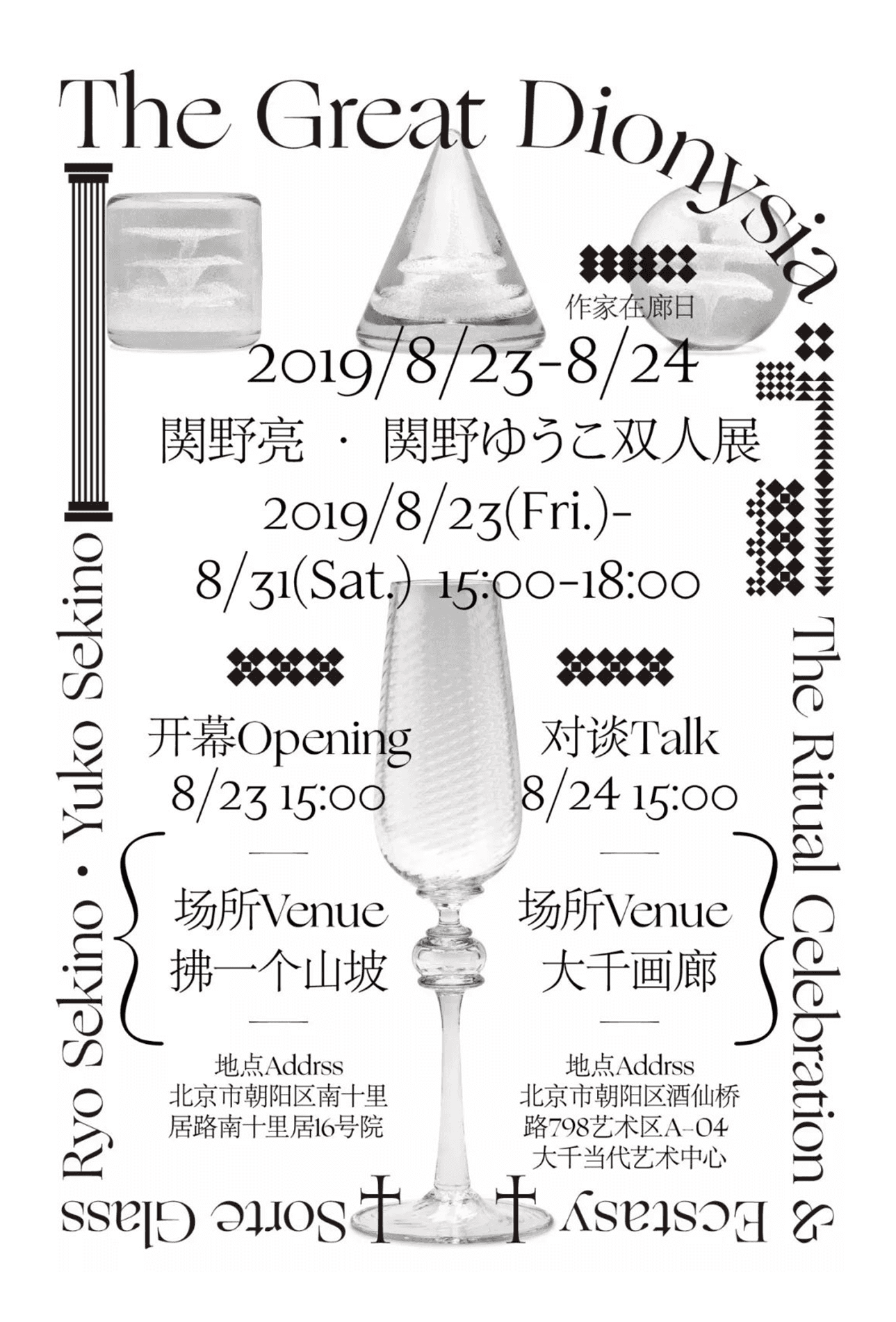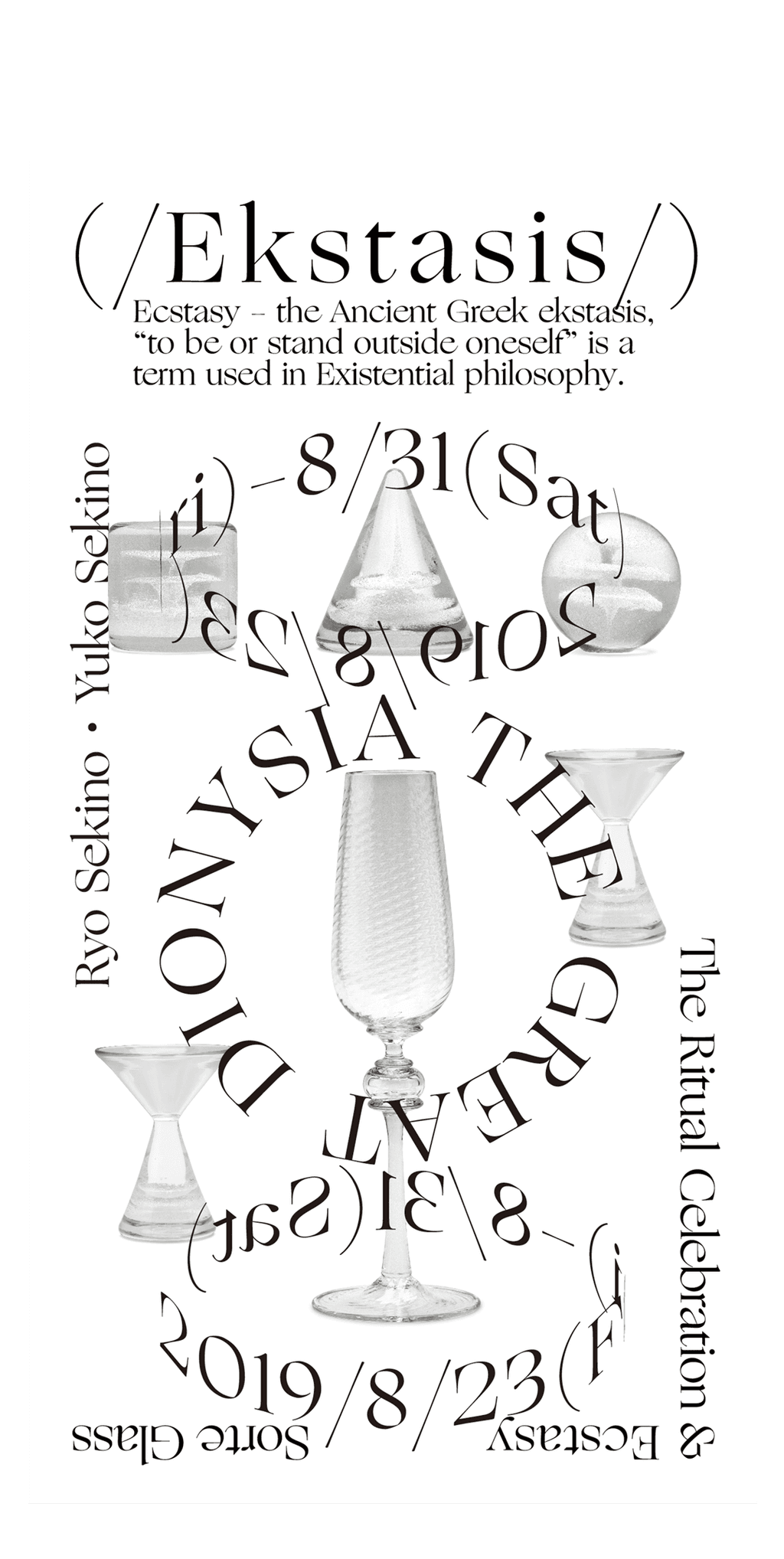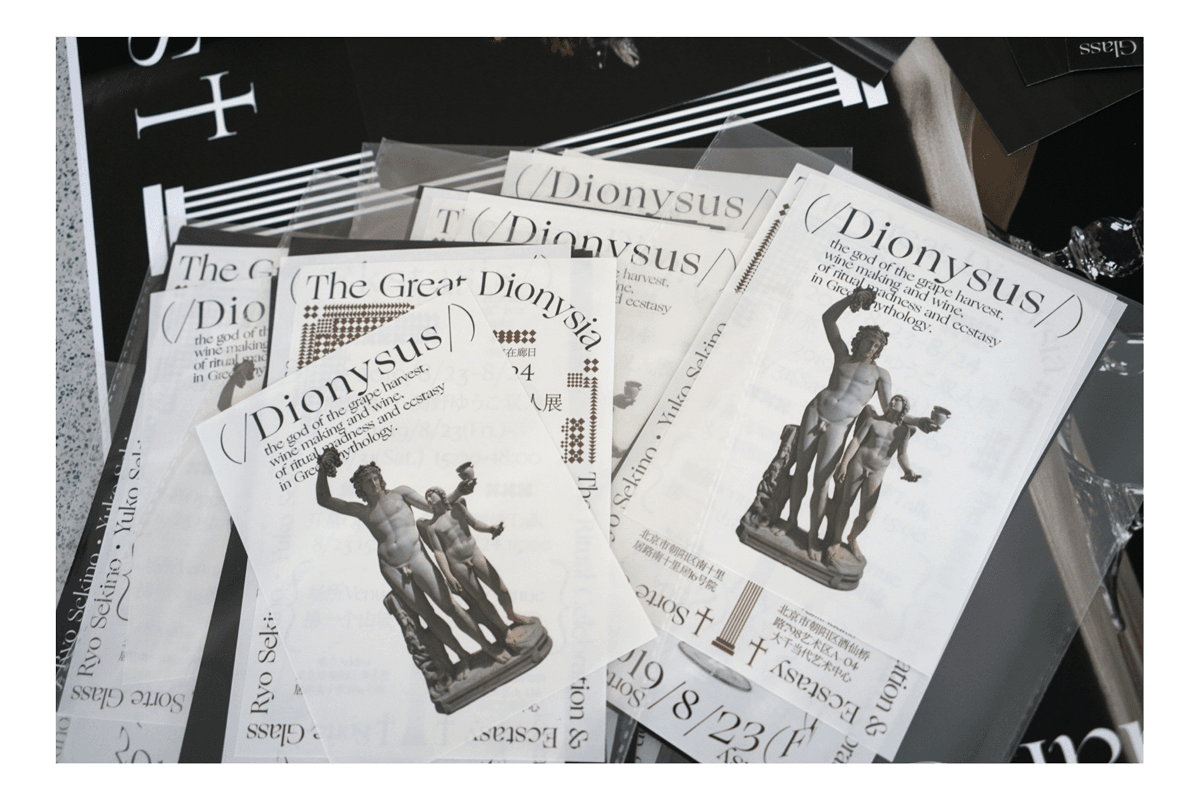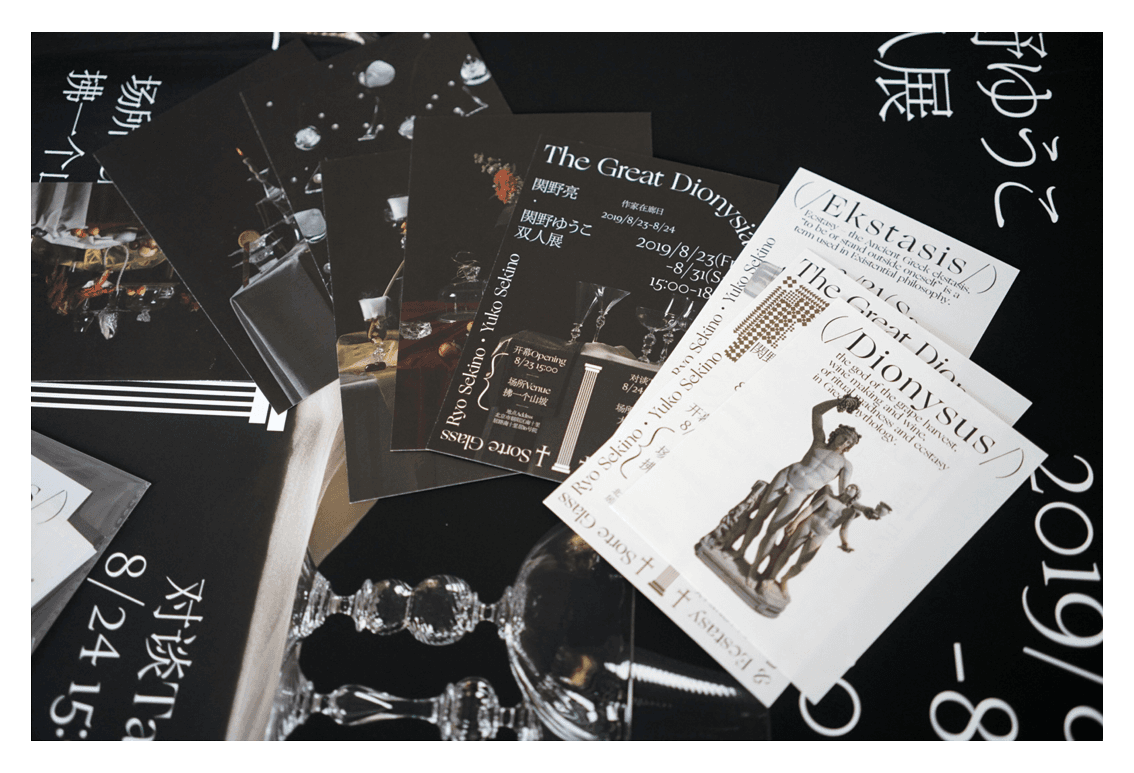
Ryo Sekino 関野亮 and Yuko Sekino 関野ゆうこ are handmade glass artists based in Tamba-Sasayama, Japan who apply classical glass-making techniques in modern vessel designs. Mazzybox of Studio NA,EO in Beijing designed posters for an exhibition, The Great Dionysia, featuring their work that uses Ogg as a primary typeface alongside Adobe Song for Hanzi and Kana scripts.
In an interview with Mazzybox, she said she sought a typeface that reflected the same harmony between the classical and modern in Sekino’s works:
“I chose Ogg as the main font in the poster because it keeps the classical aesthetics of serifs while retaining the modernity of visual representations. I appreciate Ogg’s delicate serifs and handling of thin lines — it is no doubt a distinguishing typeface and it fits perfectly for the theme of this exhibition.”